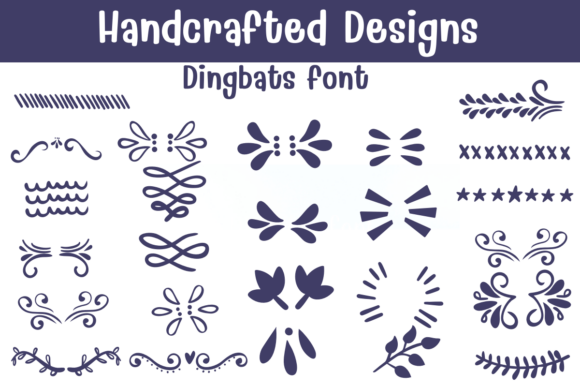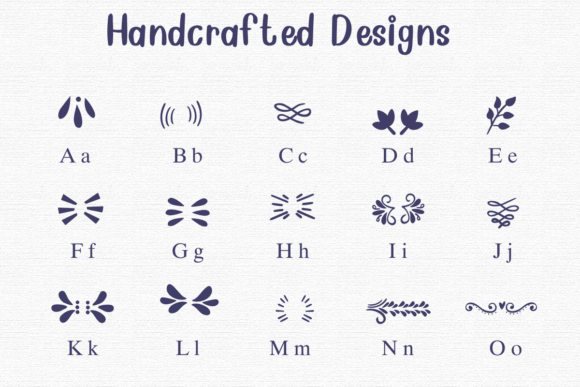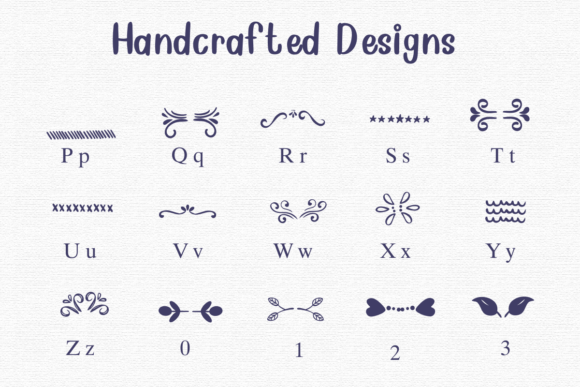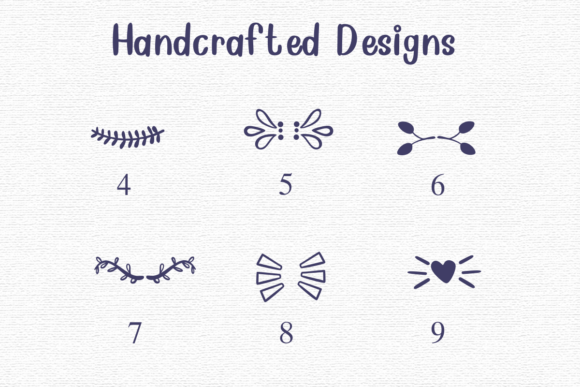
Handcrafted Designs Font
About the Handcrafted Designs Font
Meet Handcrafted Designs Font, a stunning font that brings a touch of elegance and professionalism to any design. Handcrafted Designs is a decorative dingbat font featuring elegant flourishes, swirls, borders, and botanical motifs. Ideal for wedding invitations, cards, logos, and vintage-inspired projects that need a touch of handcrafted elegance.
Its decorative nature makes it highly effective for headlines, short text blocks on invitations or packaging, and logos requiring a touch of vintage charm. However, its intricate details make it unsuitable for body text or UI elements where readability is paramount. Avoid using it for long paragraphs or small sizes.
Handcrafted Designs’ elegant and slightly whimsical personality is well-suited to brands emphasizing artisanal craftsmanship, boutique businesses, or products with a vintage aesthetic. It would be particularly effective for stationery, wedding materials, or food and beverage brands.
For effective pairings, consider complementing its decorative style with a clean, modern sans-serif like Open Sans for body copy or a classic serif like Garamond for a more traditional feel. A simple script font could also work for secondary text elements, providing a cohesive yet varied look.
Handcrafted Designs Font Usage Examples
Handcrafted Designs Font Example